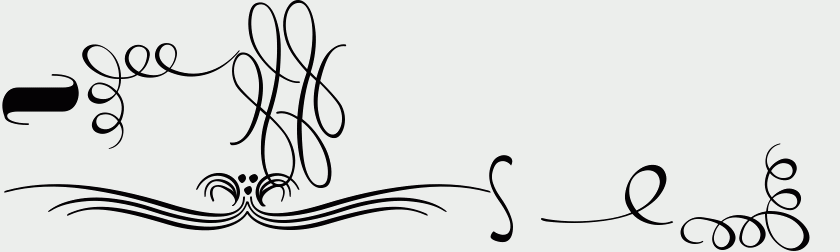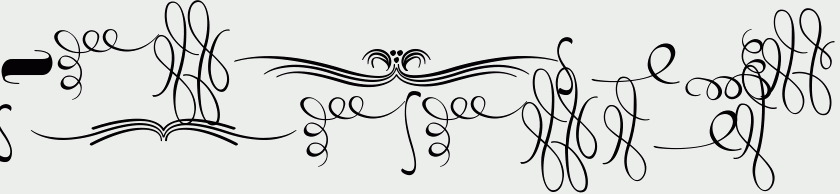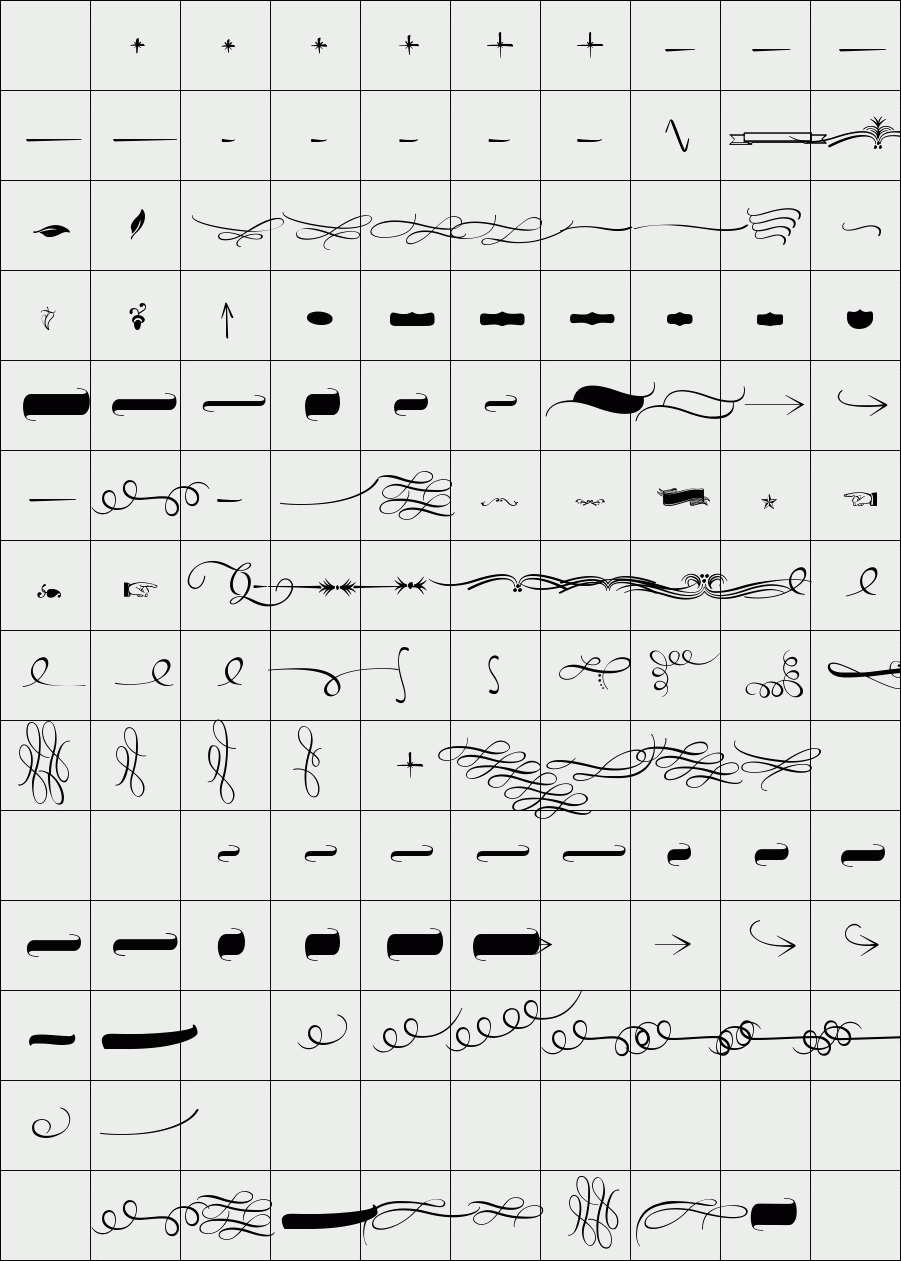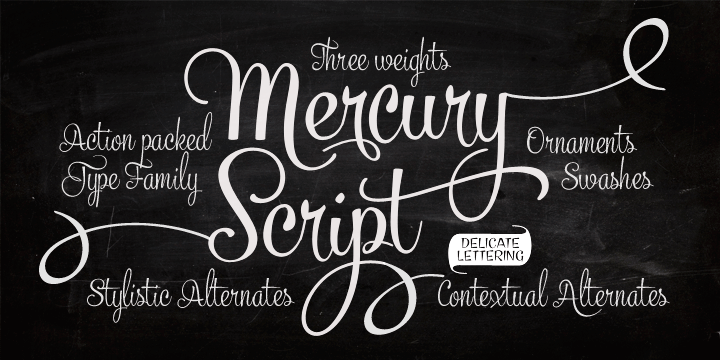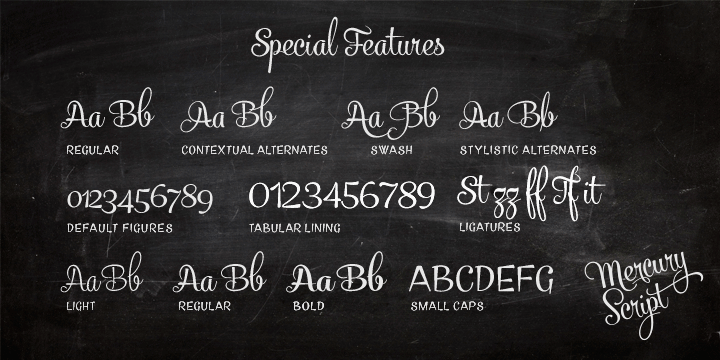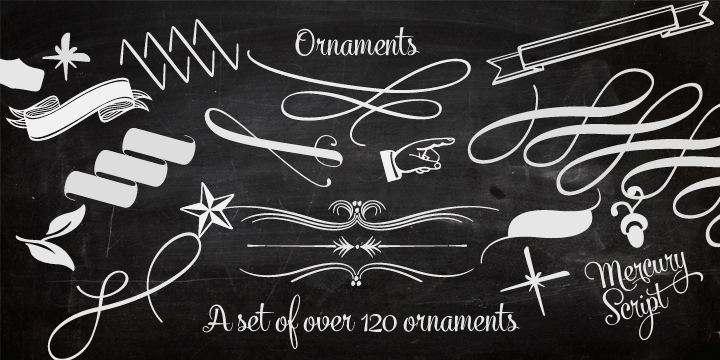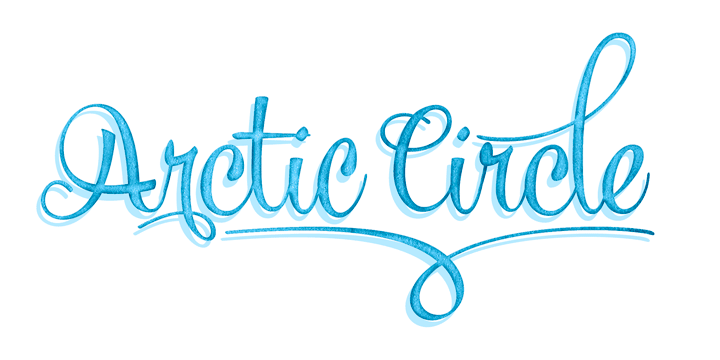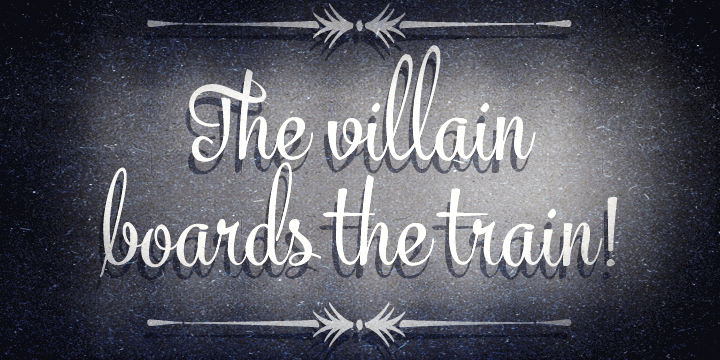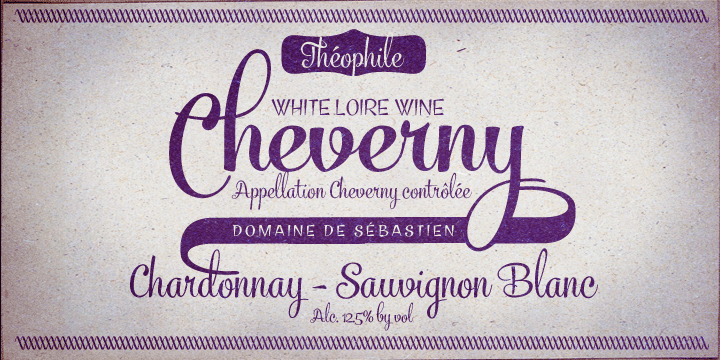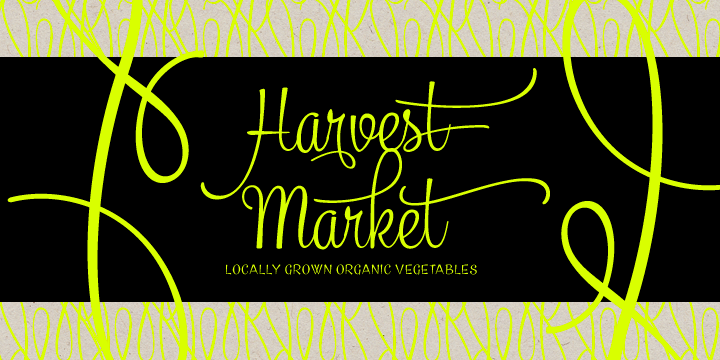
Mercury Script
/ Mercury Ornaments Regular
Mercury Script is an action packed type family of three weights. Click on Swash, Contextual or Stylistic alternates in any Open type savvy application for plenty of extra grooviness and combine with Mercury Ornaments for superb results. Turn on Small Caps to activate a complete set of block capitals designed to go with the font.
Mercury Script is based loosely on hand lettering found in a vintage lingerie advertisement, only containing the words “light control”.